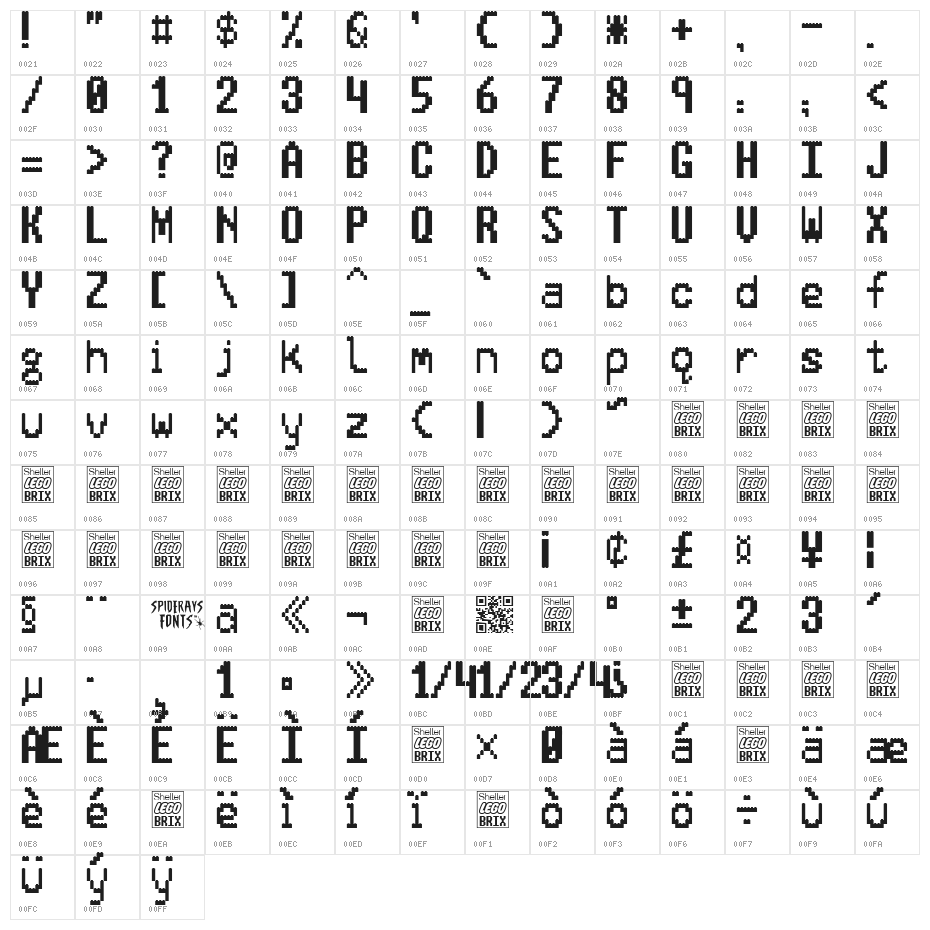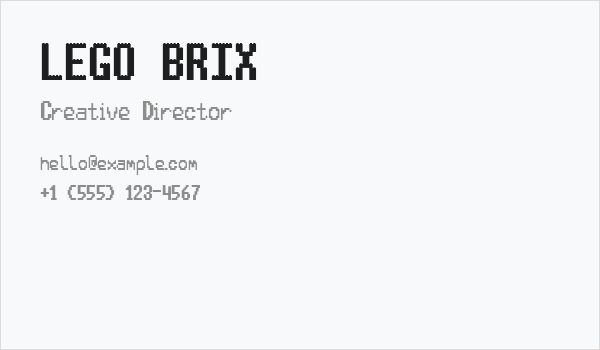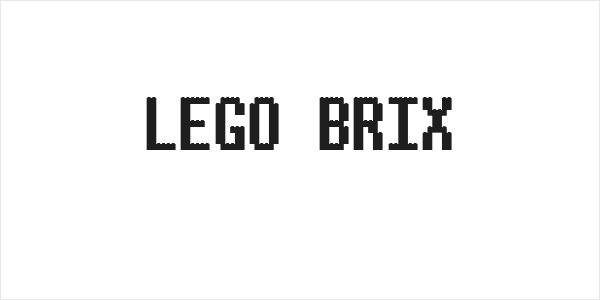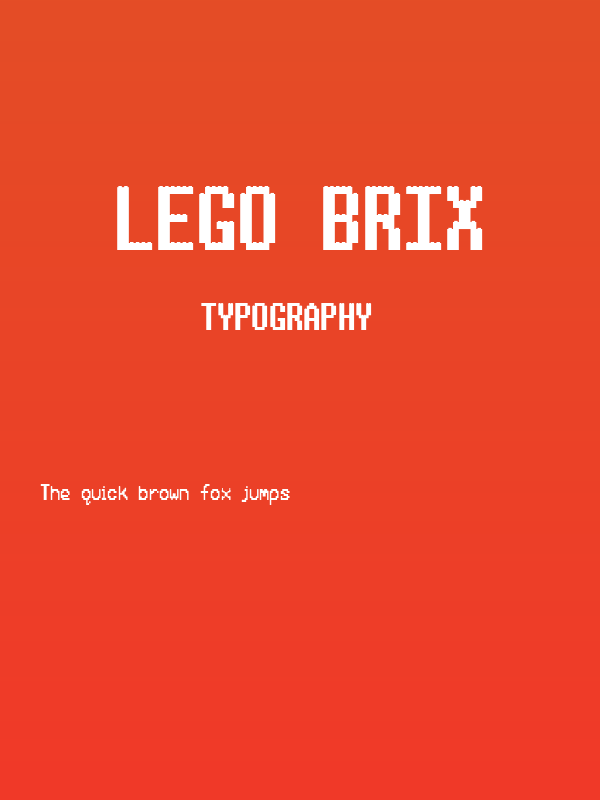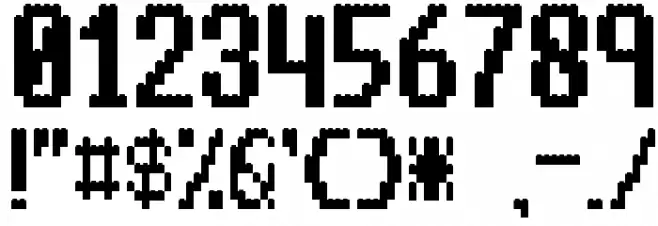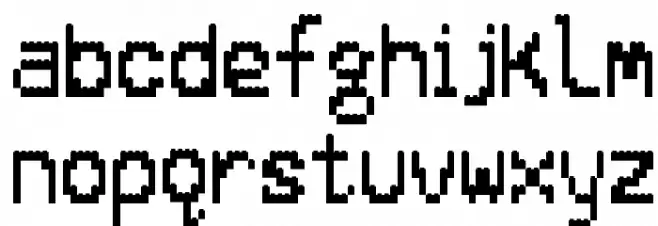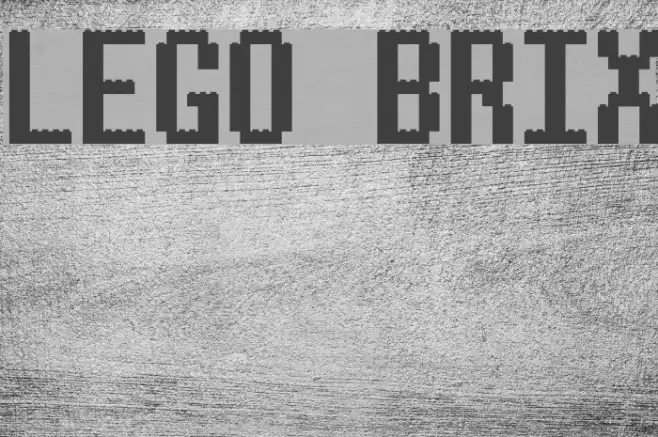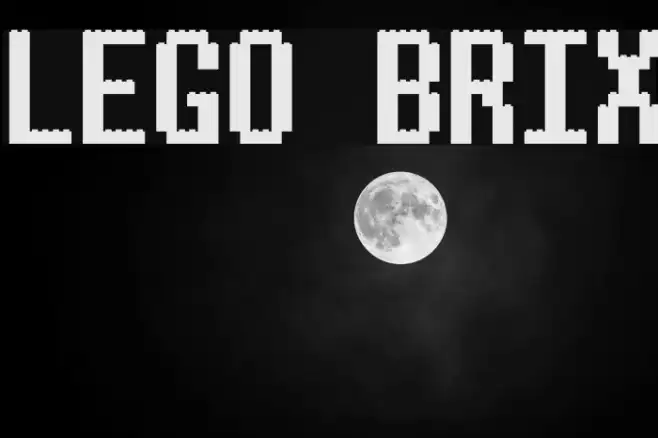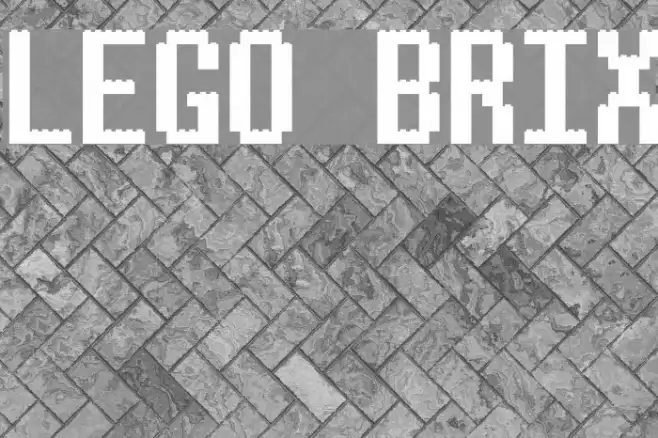
LEGO BRIX Font
LEGO BRIX Description
This font features a playful, blocky design reminiscent of pixel art or digital displays. Each character is composed of square-like shapes, giving it a distinctly geometric and modular appearance. The uppercase and lowercase letters maintain a consistent height, contributing to a uniform look. The numbers and special characters follow the same blocky style, ensuring cohesion across all glyphs. This font's unique construction makes it ideal for projects that require a retro or tech-inspired aesthetic. Its bold, chunky form ensures readability even at smaller sizes, while the uniformity of the characters provides a clean and organized appearance.
| Overall Style | Retro, Tech-inspired |
| Proposed Projects | Ideal for video game graphics, digital art projects, tech-themed posters, and retro-style branding. |